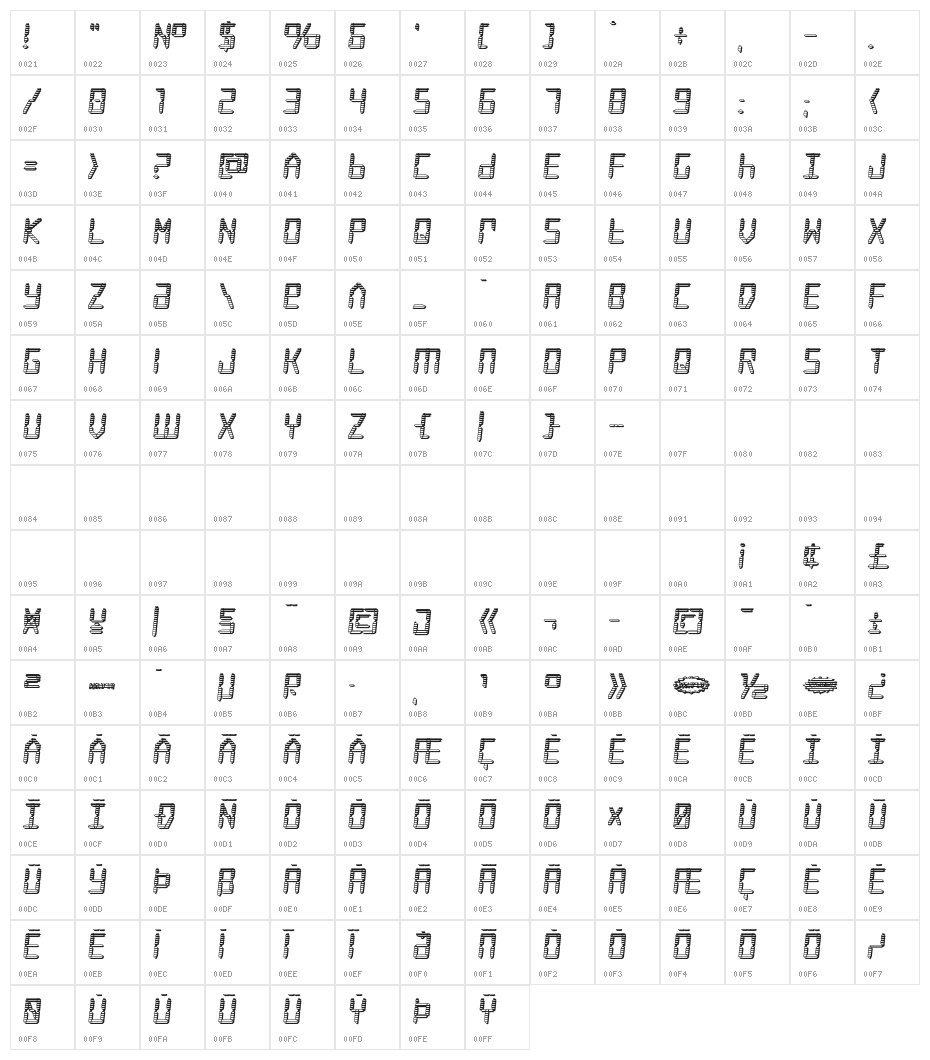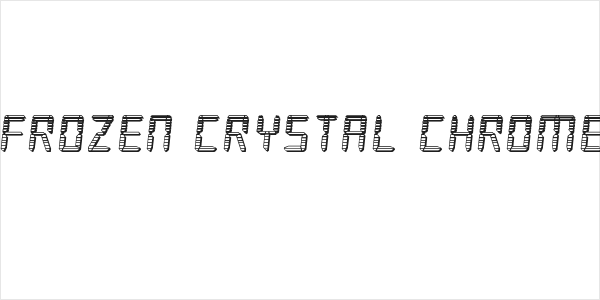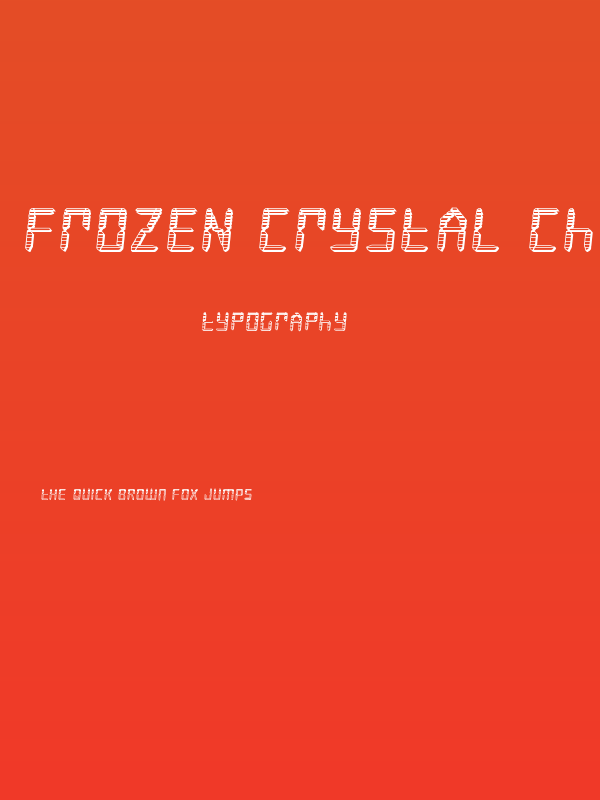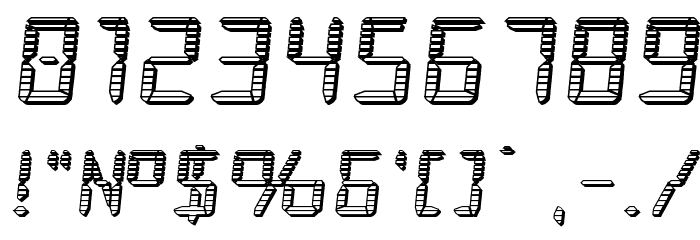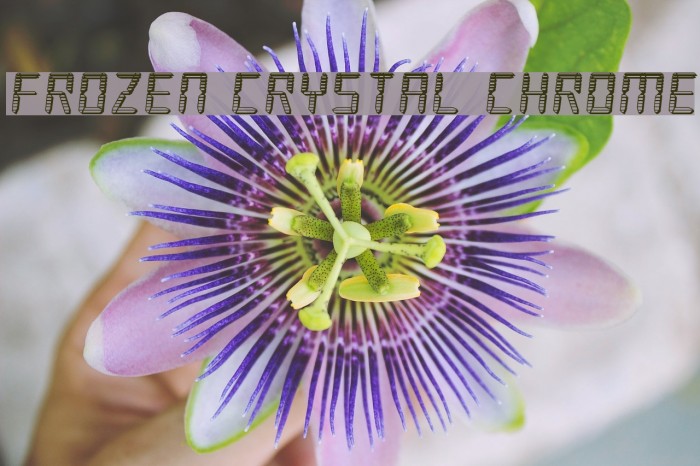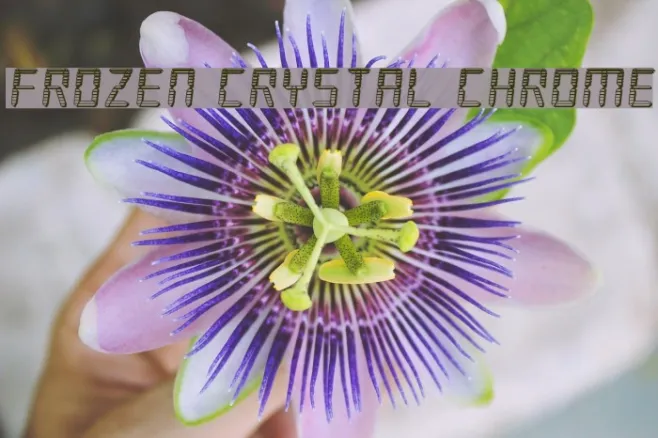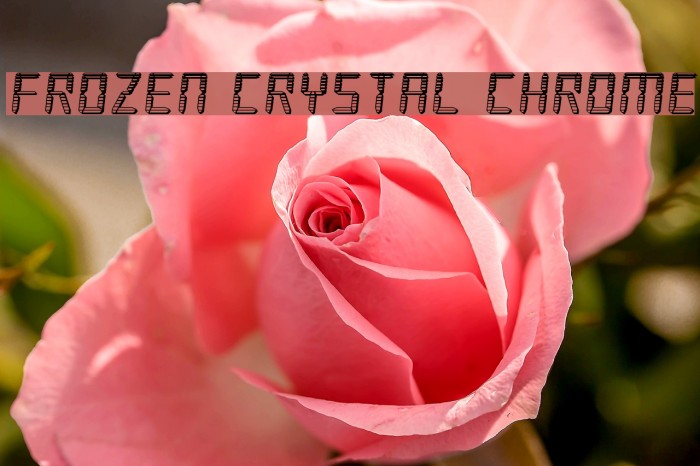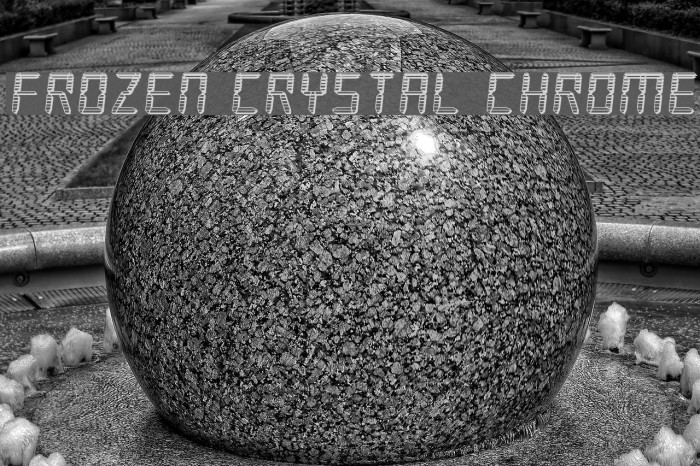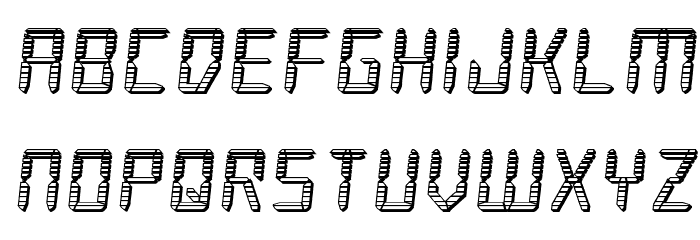
Frozen Crystal Chrome Font
Frozen Crystal Chrome Description
This font features a unique, futuristic design with a three-dimensional, crystalline appearance. Each character is constructed with a series of parallel lines that create a sense of depth and texture, reminiscent of frozen crystals or chrome surfaces. The geometric structure of the letters is consistent, with sharp angles and clean lines that contribute to its modern aesthetic. The uppercase and lowercase letters maintain a uniform style, while the numbers and special characters integrate seamlessly into the overall design. This font's distinct style makes it ideal for projects that require a bold, eye-catching look.
| Overall Style | Futuristic, Modern |
| Proposed Projects | Ideal for sci-fi themed designs, technology branding, video game titles, and futuristic posters. |